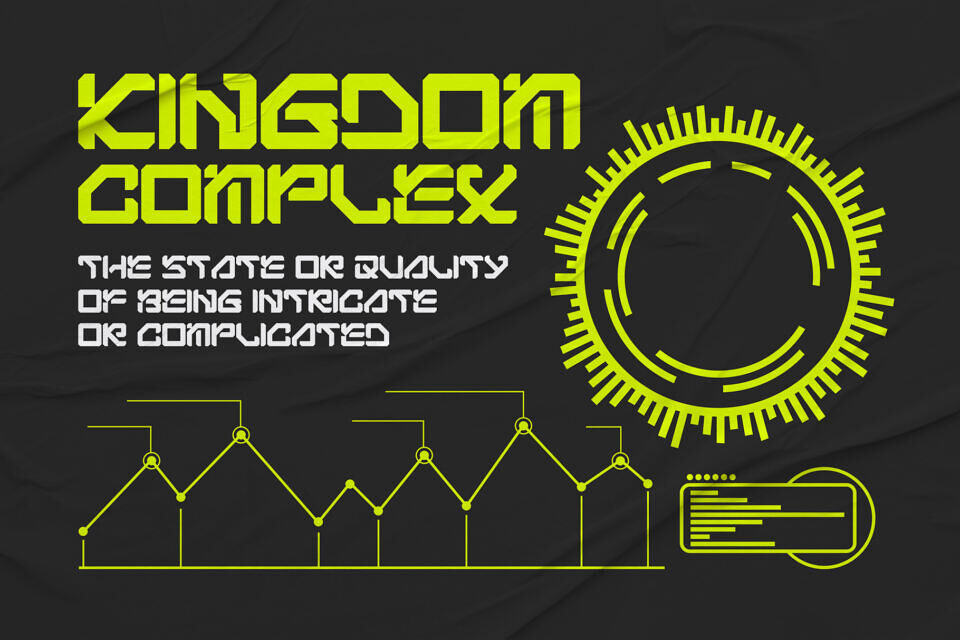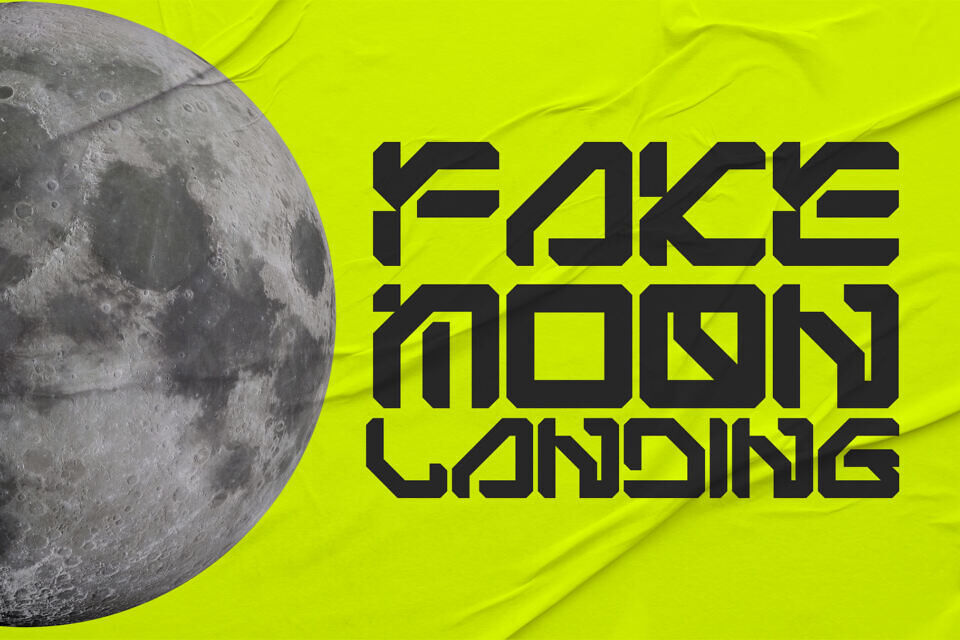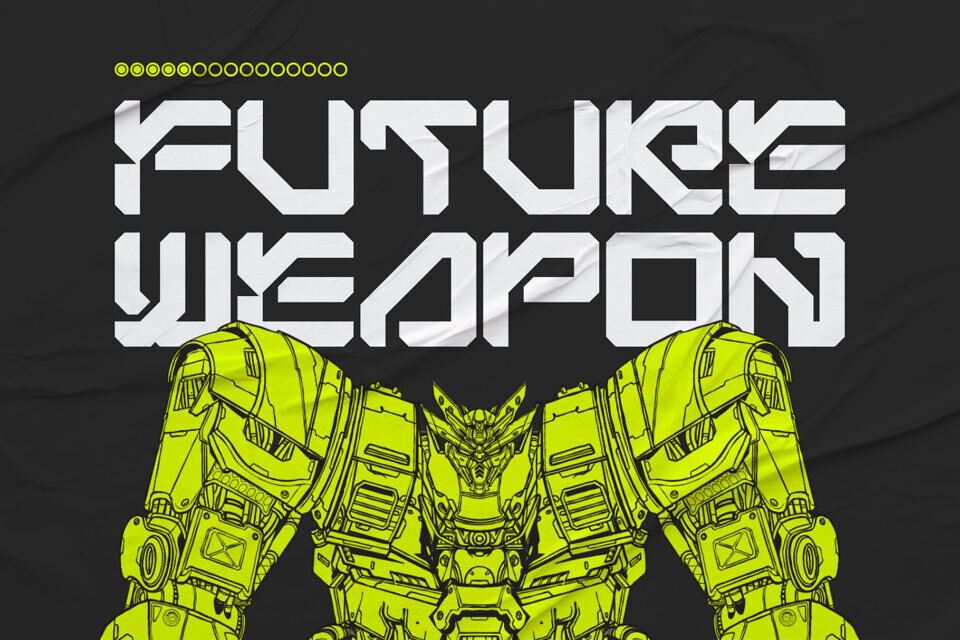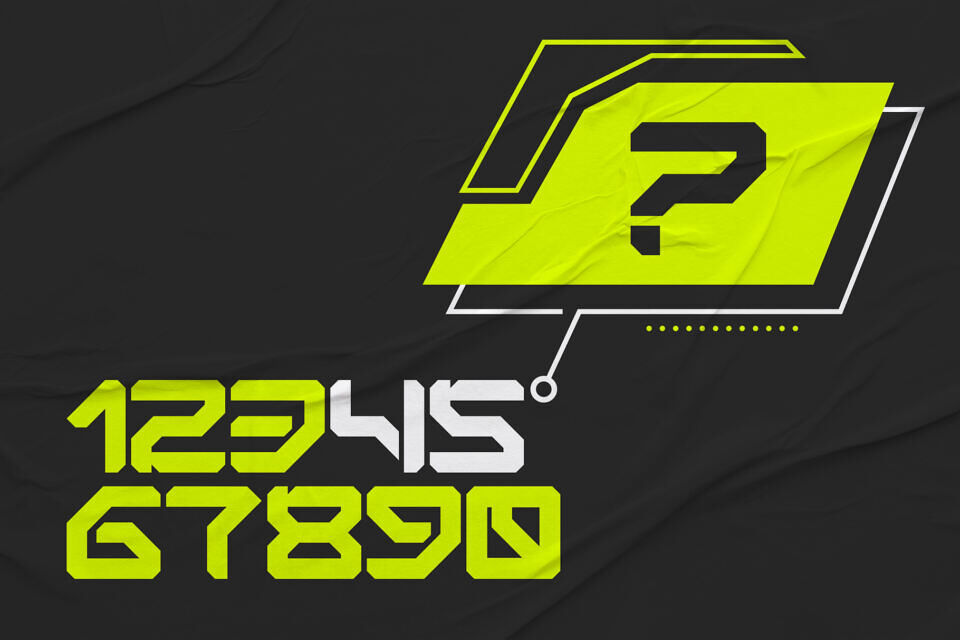
Bigs Robotic Font
Bigs Robotic is a futuristic and robotic-styled display font. It features geometric shapes, straight lines, and zigzags for an overall modern and very cool appearance!
Built to be perfect for headlines, jerseys, logos, branding, posters, packaging, advertising, and much more.